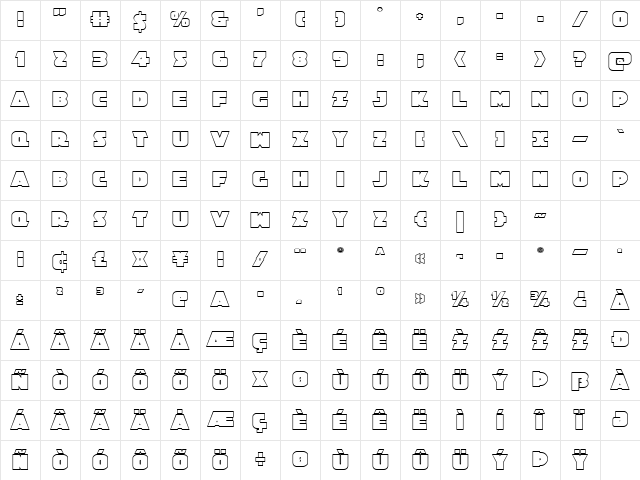
Jedi Special Forces Outline Regular
Design Context for Jedi Special Forces Outline
Jedi Special Forces Outline brings high-energy athletic personality to the page - its confident, muscular forms are built for impact.
Pro Tip: Use Jedi Special Forces Outline in all-caps headlines where its athletic energy can fully express itself. Pair with a solid, simple sans for supporting text.